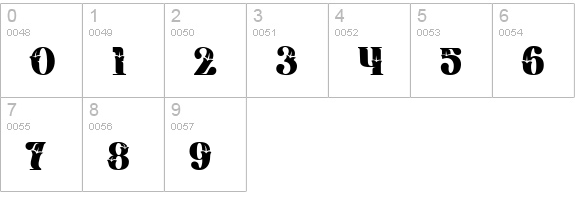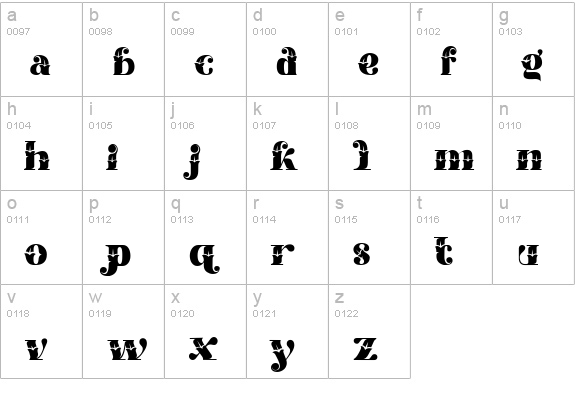
Introducing Kyra Vaglo, a modern and stylish font that effortlessly combines elegance with a touch of playfulness. The graceful curves and unique letterforms of Kyra Vaglo make it perfect for a wide range of design projects, from branding to packaging and everything in between.